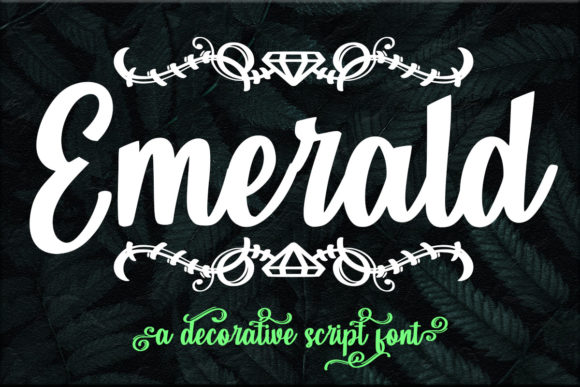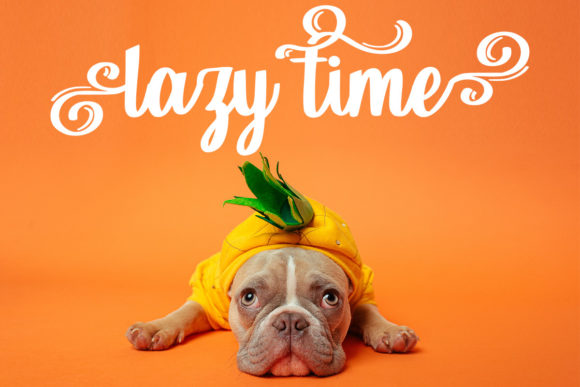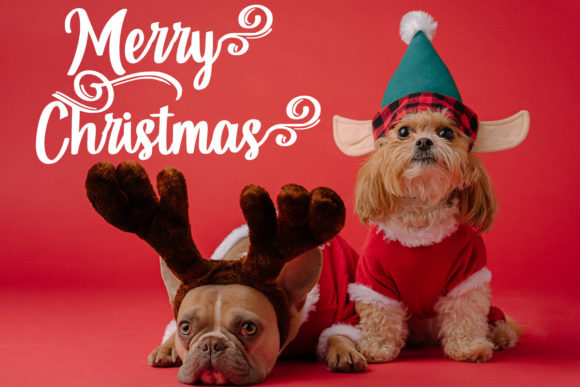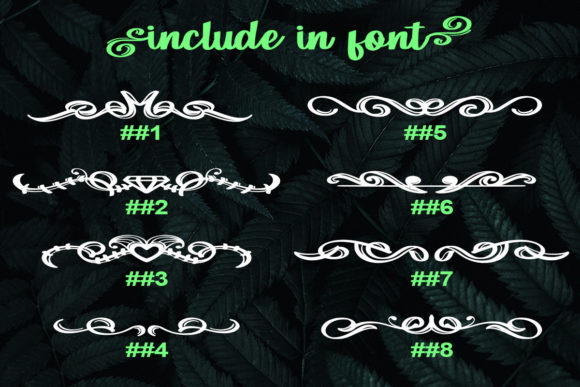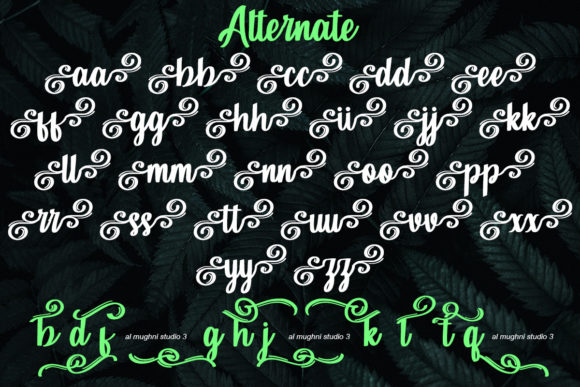
Emerald Font
About Emerald Font
Emerald is a handwritten font characterized by its bold and unique shape. It adds a stunning touch to wedding invitations, thank you cards, quotes, greeting cards, logos, business cards, and any other design that requires a handwritten touch. Let’s revise this text into a SEO-friendly 400-word version:
Emerald is a distinctive handwritten font, crafted with a bold and unique shape that sets it apart from other fonts. Its design exudes a sense of creativity and originality, making it a standout choice for a wide range of design projects. Whether you’re designing wedding invitations, thank you cards, or business logos, Emerald can add a touch of elegance and sophistication to your creations.
One of the key features of Emerald is its bold and unique shape. Unlike traditional fonts, Emerald is designed with a distinctive handwritten style that gives it a unique character. This bold design not only makes Emerald stand out but also adds a personal touch to your designs, making them more engaging and appealing to the audience.
Emerald is not just a font; it’s a design tool that can enhance the aesthetic appeal of your projects. It looks stunning on a variety of mediums, from wedding invitations and thank you cards to quotes, greeting cards, and logos. The versatility of Emerald makes it a valuable addition to any designer’s toolkit.
In addition to its aesthetic appeal, Emerald also offers practical benefits. Its clear and legible design makes it suitable for both print and digital mediums. Whether you’re designing a business card or creating a logo, Emerald ensures that your text is always easy to read and understand.
Emerald is more than just a beautiful font; it’s a way to express creativity and individuality in your designs. Its unique shape and bold design allow you to create designs that are not only visually appealing but also reflect your unique style and personality.
In conclusion, Emerald is a bold and unique handwritten font that can enhance the beauty of any design. Its versatility and aesthetic appeal make it a valuable addition to any font library. Whether you’re a professional designer or a hobbyist, Emerald is a font that can help you create stunning and memorable designs. So, if you’re looking for a font that can add a handwritten touch to your designs, look no further than Emerald.